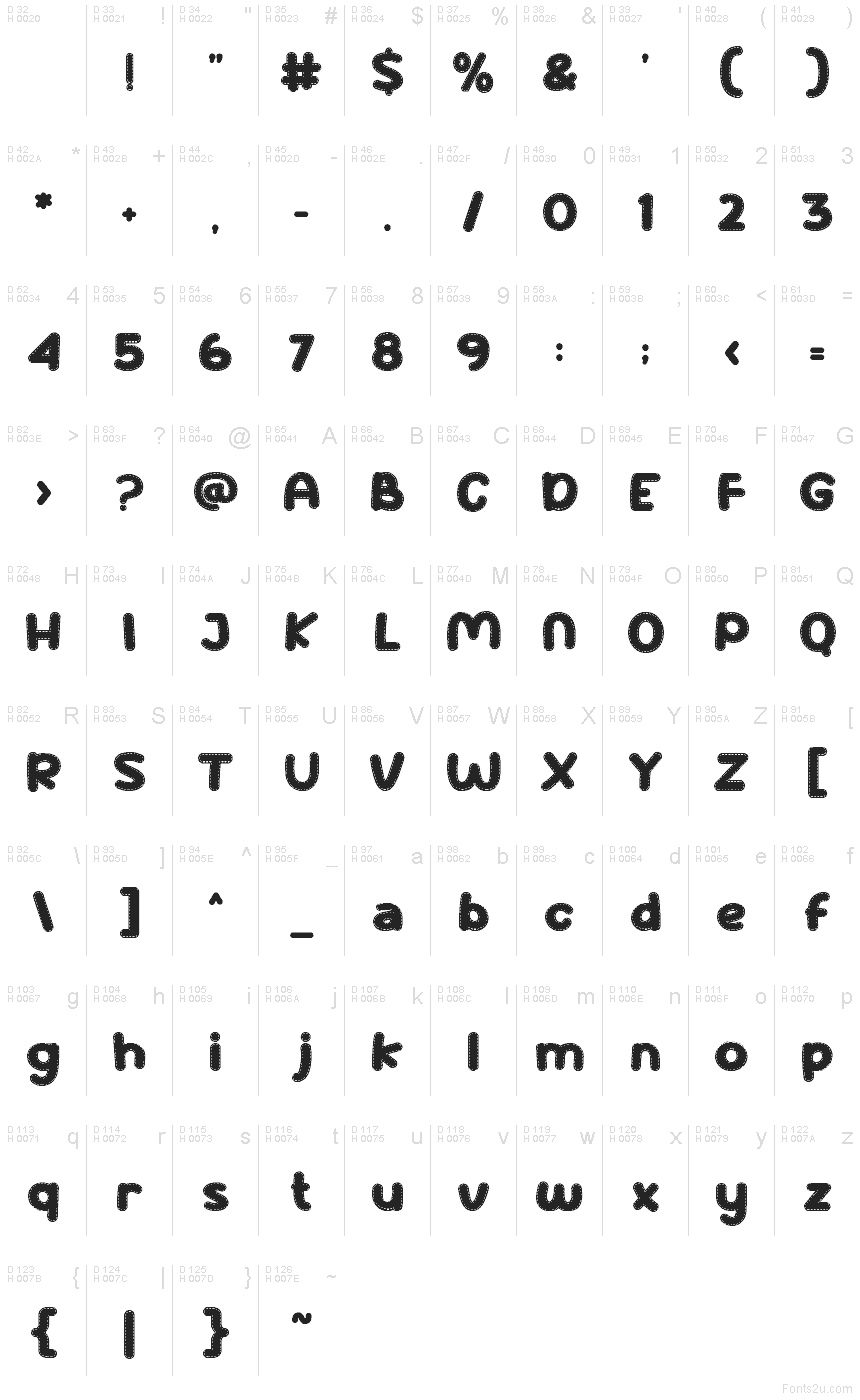
Super School Stitch
Super School Stitch font by PutraCetol Studio is a display typeface and part of the Super School family with bold weights. The decorative font has a modern appeal where fun and optimism transpire its rounded letters, whimsical designs, decorative texture, energetic presence, and youthful atmosphere.
School projects featuring children’s books covers and content; websites for children-focused businesses like nurseries and schools; comic books page titles; interesting product labels for goods targeting kids-like food packaging containers or even toys.